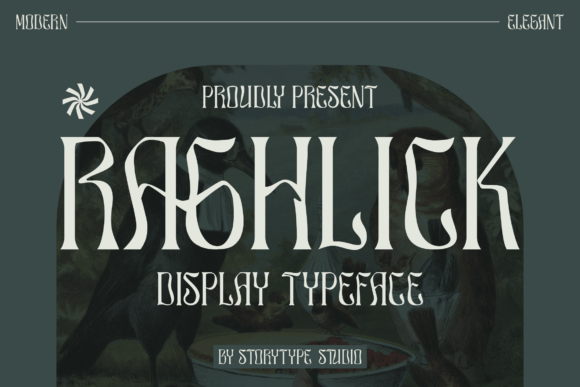
Fonts can set the tone and create the perfect atmosphere for any wedding program. Whether you're dreaming of a timeless, classic ceremony or a more modern, playful event, there's a font out there that will perfectly match your vision.
Introducing Raghlick Font, the serif typeface that exudes elegance and luxury. This modern and classic font family is perfect for creating a truly unforgettable wedding program.
With its unique style and modern look, Raghlick Font will add a touch of sophistication to any event. It's the perfect choice for couples who want to create a program that is both beautiful and memorable.
Imagine your wedding program, adorned with the exquisite curves and flourishes of Raghlick Font. Your guests will be captivated by the beauty of the typography, and they'll cherish your program long after the wedding day is over.
Don't settle for ordinary fonts that don't reflect the magic of your wedding day. Choose Raghlick Font, and create a program that is as unique and special as your love.